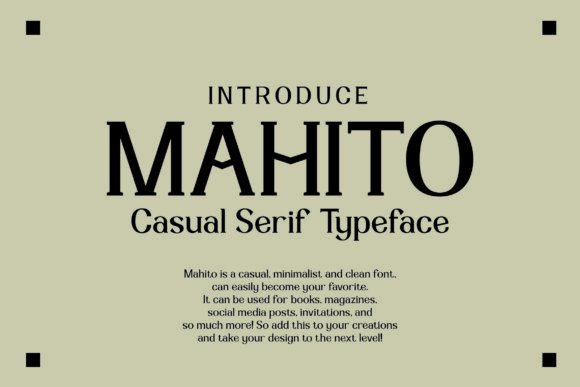
Welcome to the realm of Mahito, a vintage serif font that breathes life into your creations, imbuing them with an aura of timeless elegance. This minimalist and clean font is a visual symphony, effortlessly blending the charm of yesteryear with the vitality of the present.
Born from the creative forge of twousstudio, Mahito captivates with its intricate strokes, reminiscent of the golden age of print. Its unassuming presence belies a versatility that knows no bounds. Whether you seek to craft captivating books or magazines, design social media posts that ignite engagement, or create invitations that leave a lasting impression, Mahito stands as your steadfast companion.
Experience the transformative power of Mahito as it elevates your designs to new heights. Its essence lies in its ability to seamlessly adapt to a myriad of creative endeavors, effortlessly complementing and enhancing your vision. Let Mahito be the cornerstone of your next masterpiece, be it a captivating novel, an informative article, or a visually stunning social media post.
Step into the world of Mahito and unlock a world of endless possibilities. Embrace the vintage charm of this serif font, and watch as your designs blossom into works of art. Its clean lines and elegant curves beckon you to explore a realm where creativity knows no limits.